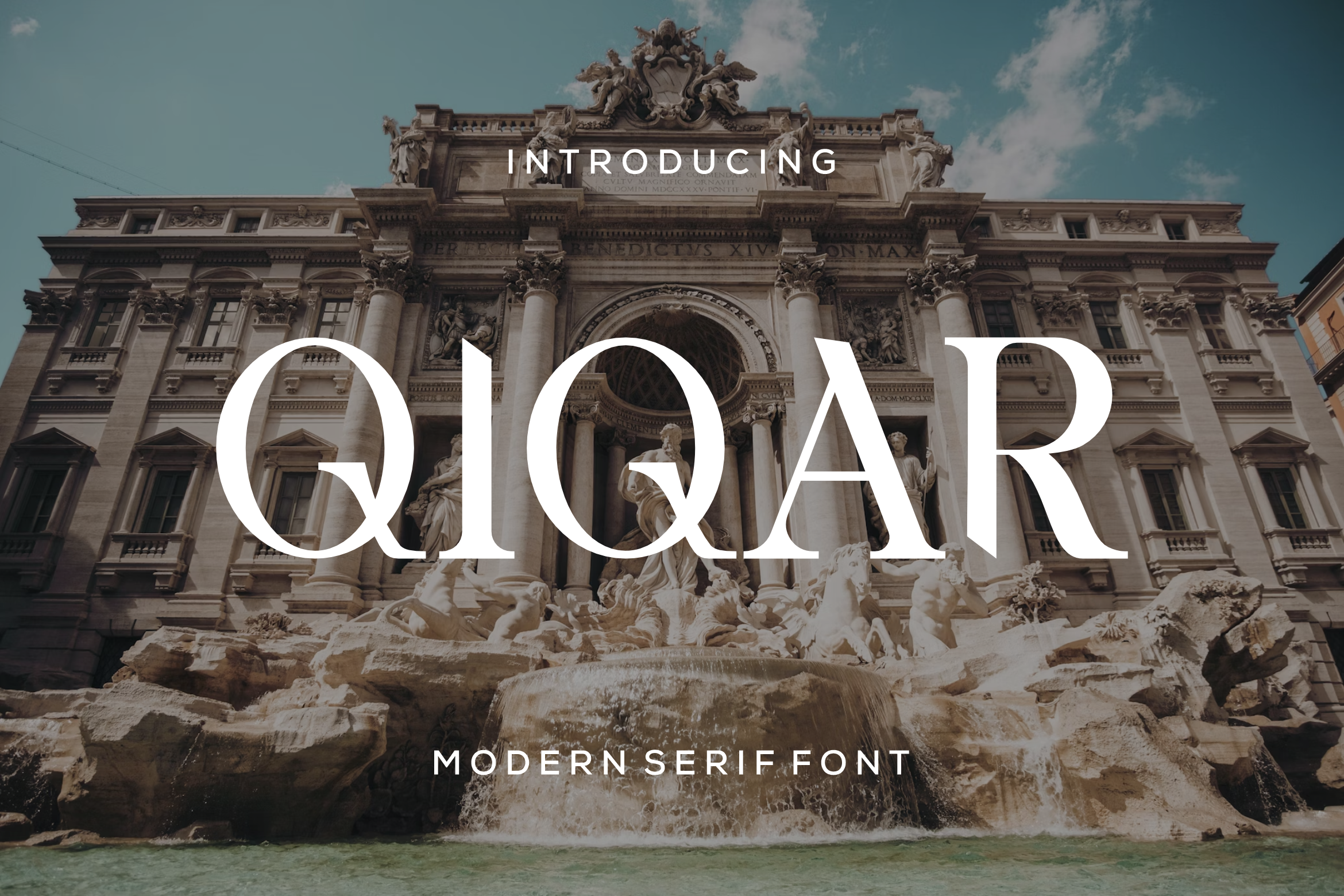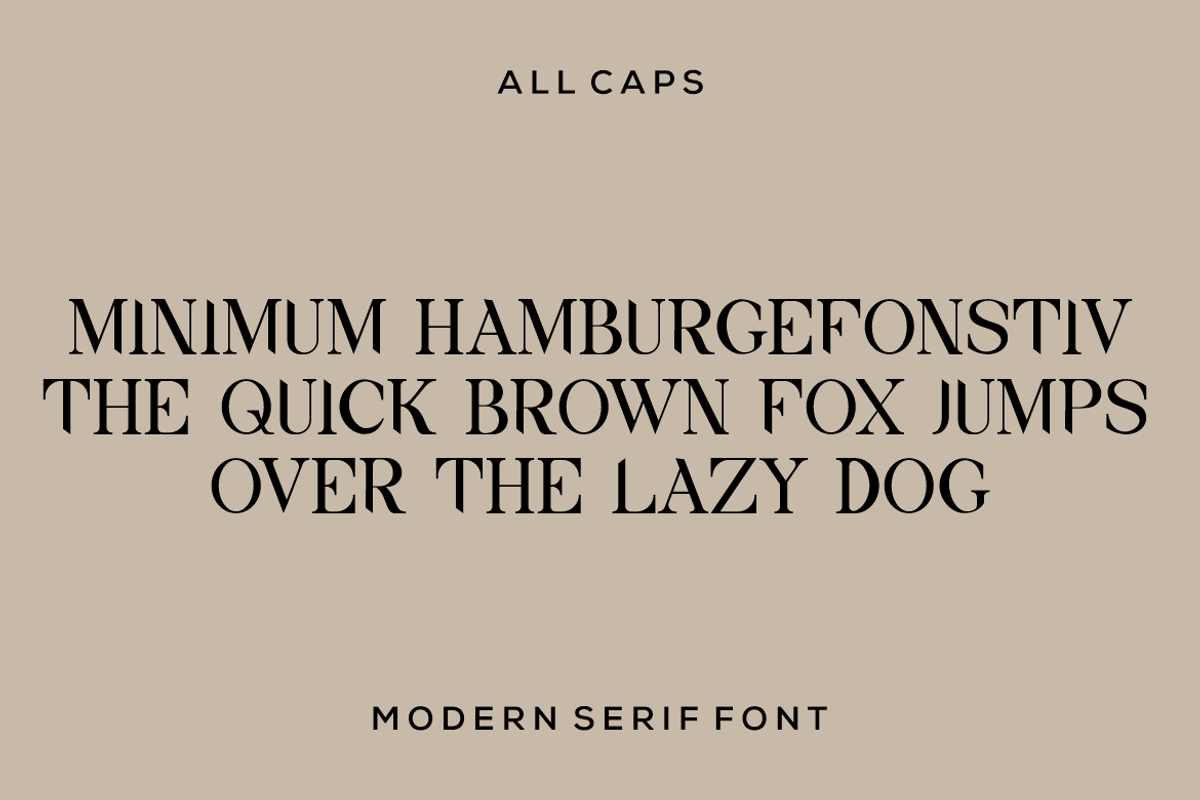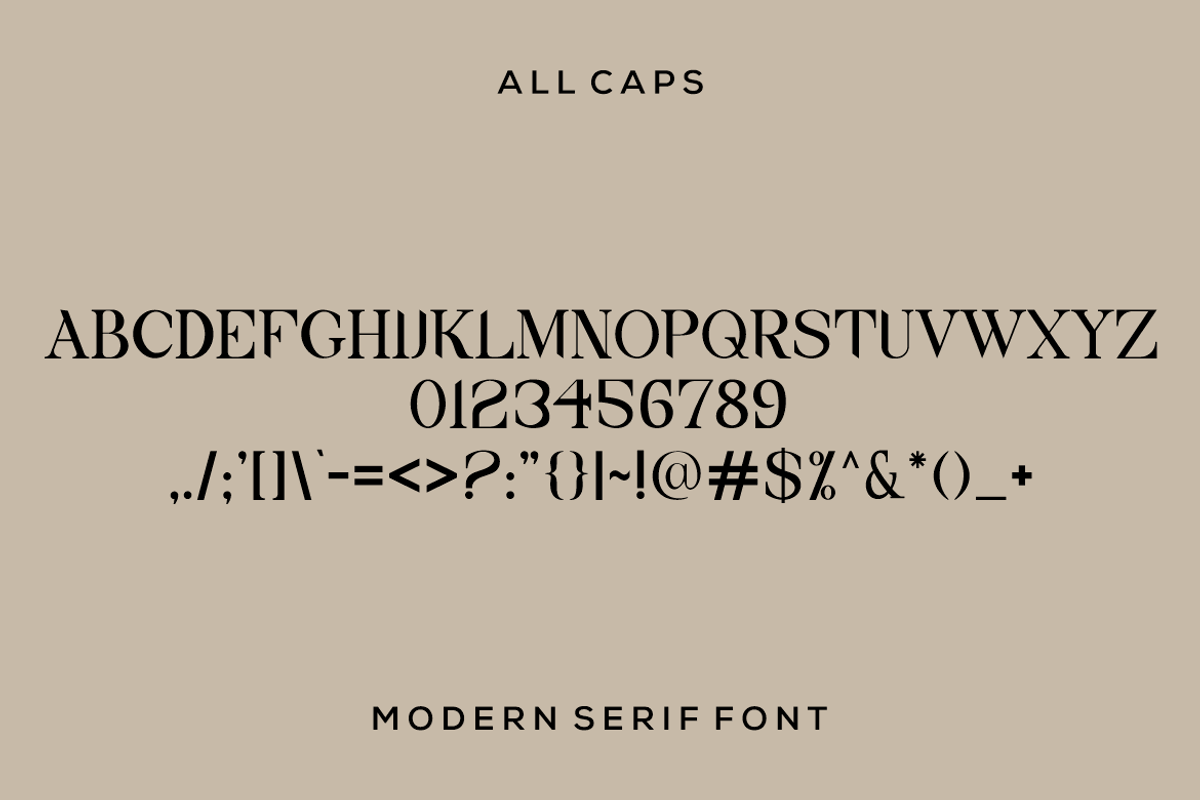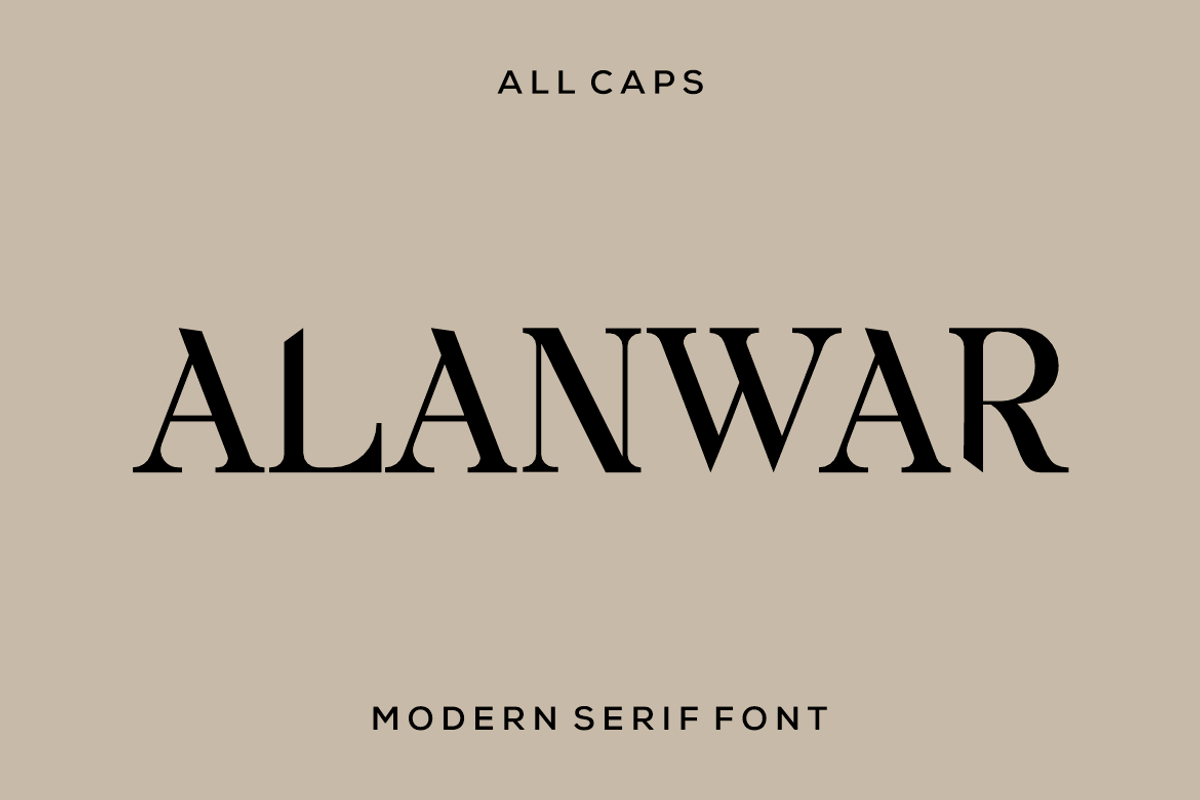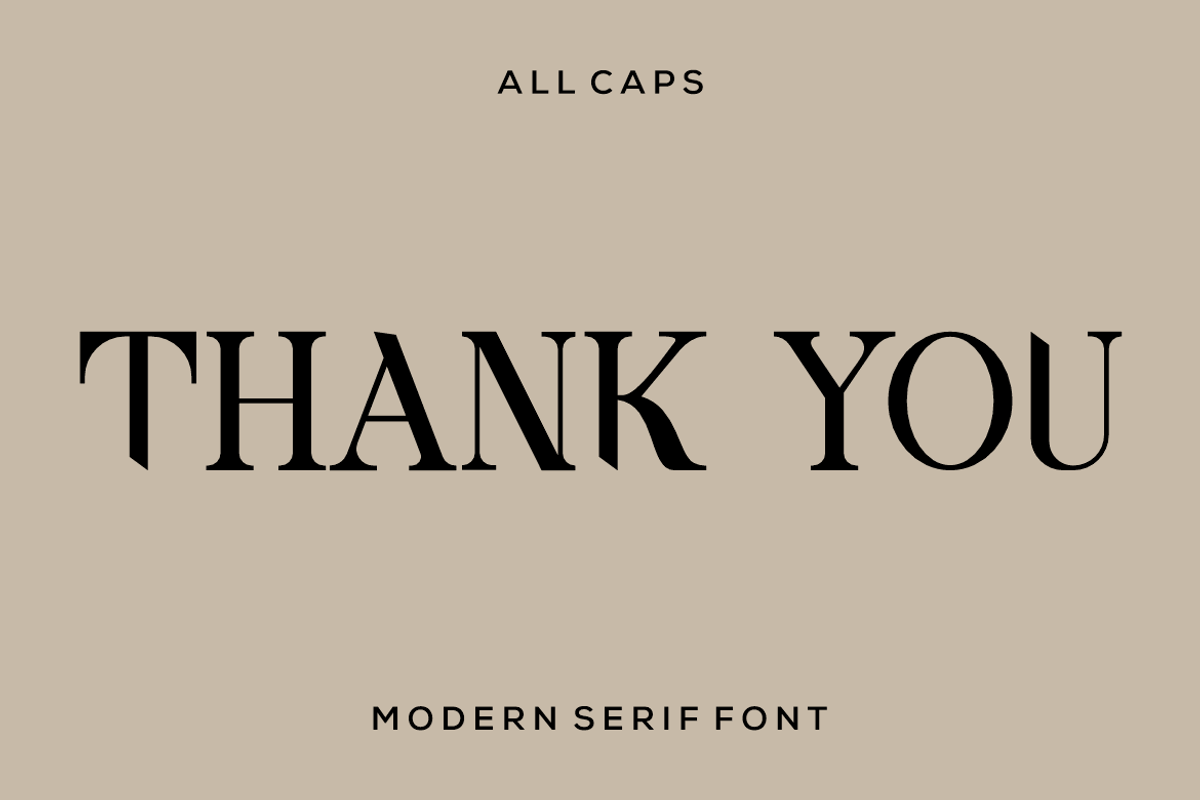
QIQAR modern serif font
Introducing our new product – QIQAR Modern serif Font
QIQAR is a modern serif font, a modern display font with playful flair, ideal for attention-grabbing headlines, logos, and diverse design projects. Versatile and readable in both digital and print, QIQAR adds a dynamic touch to your message.